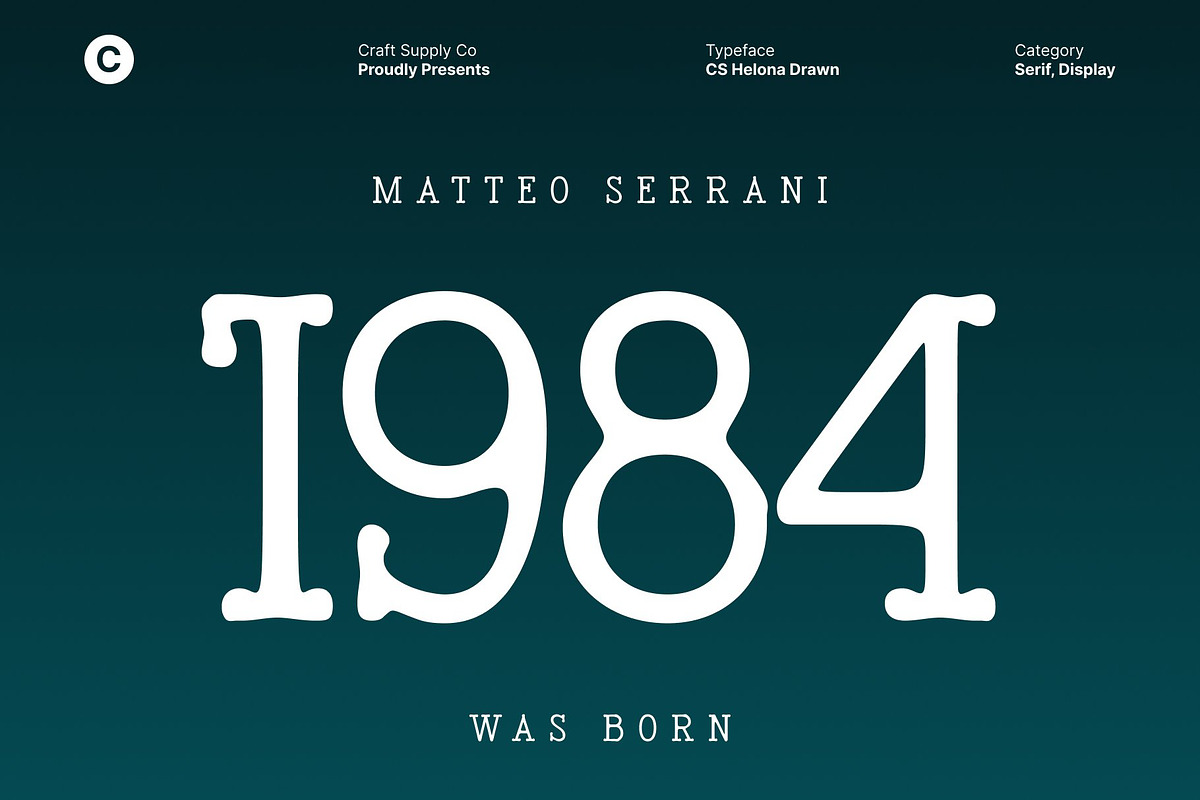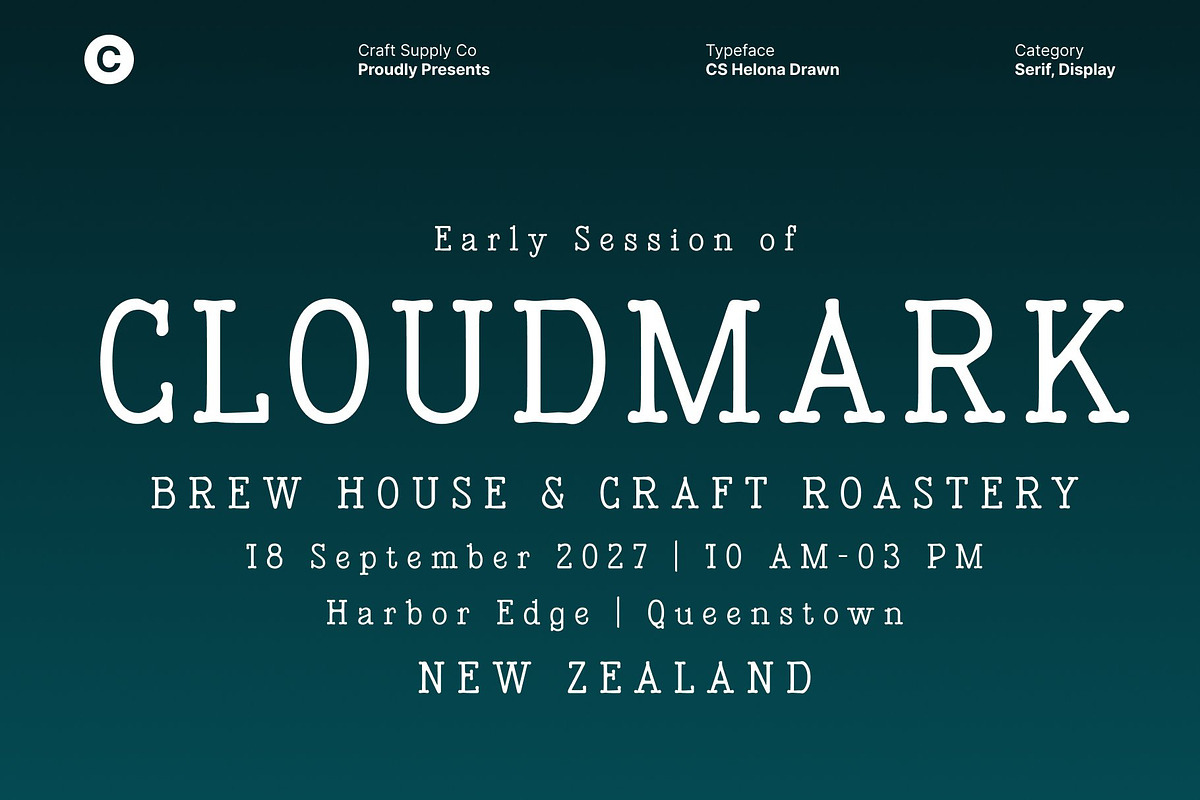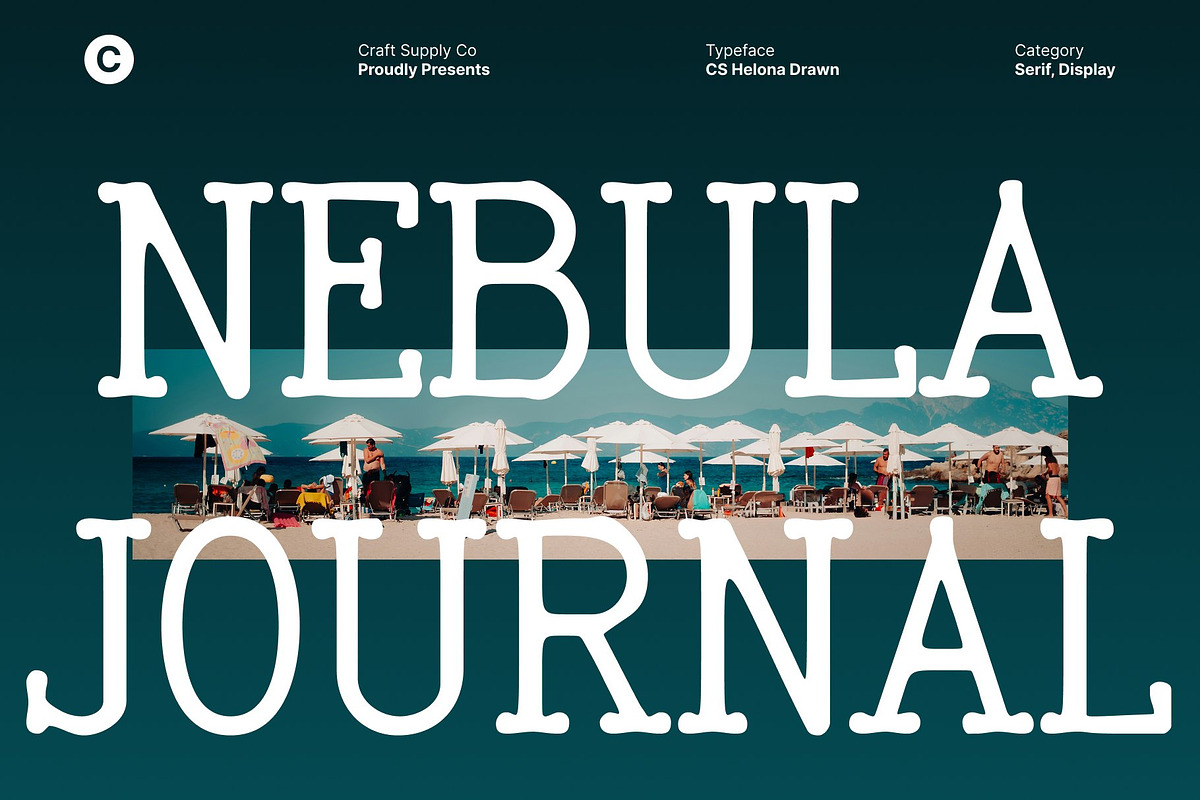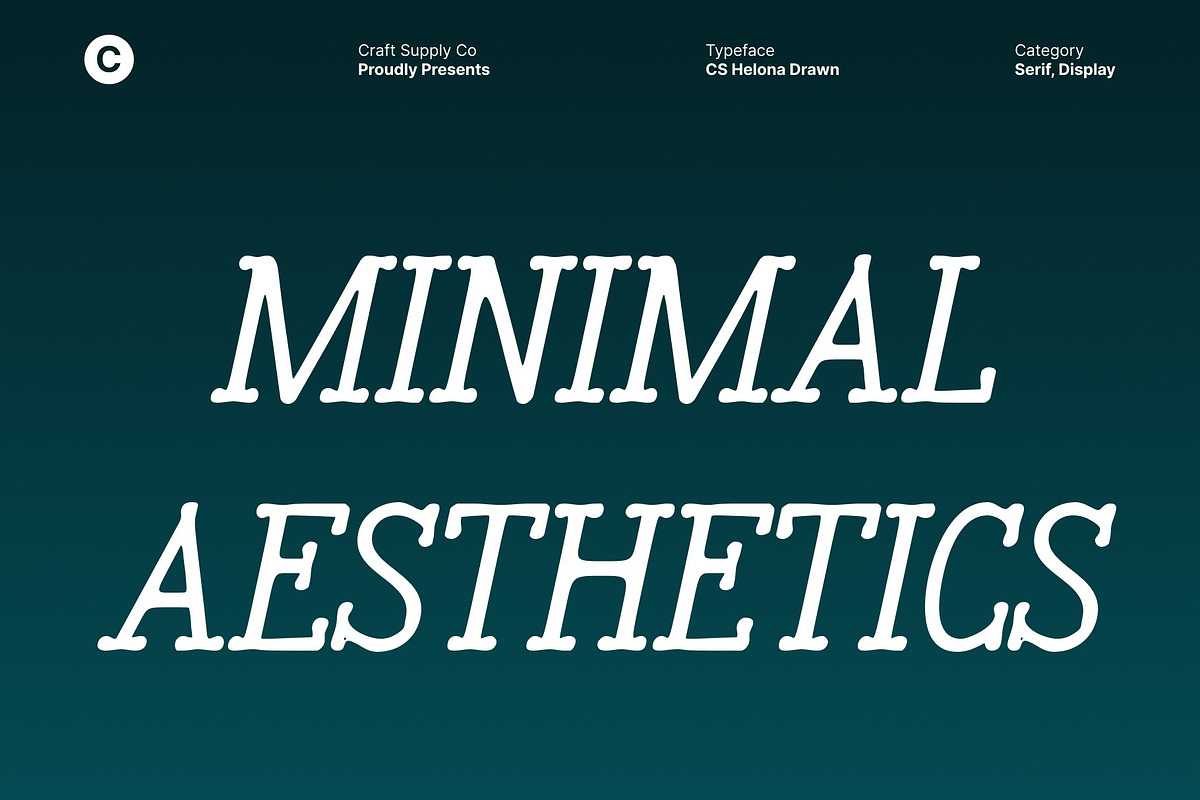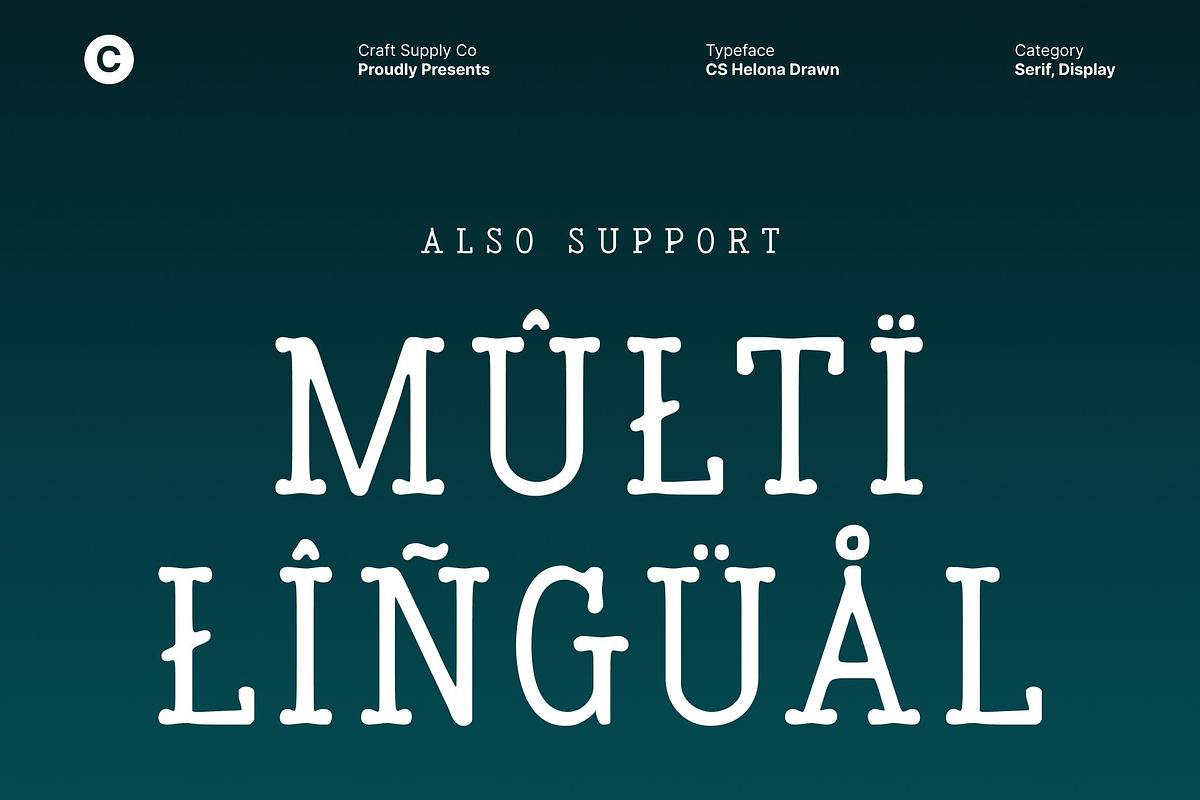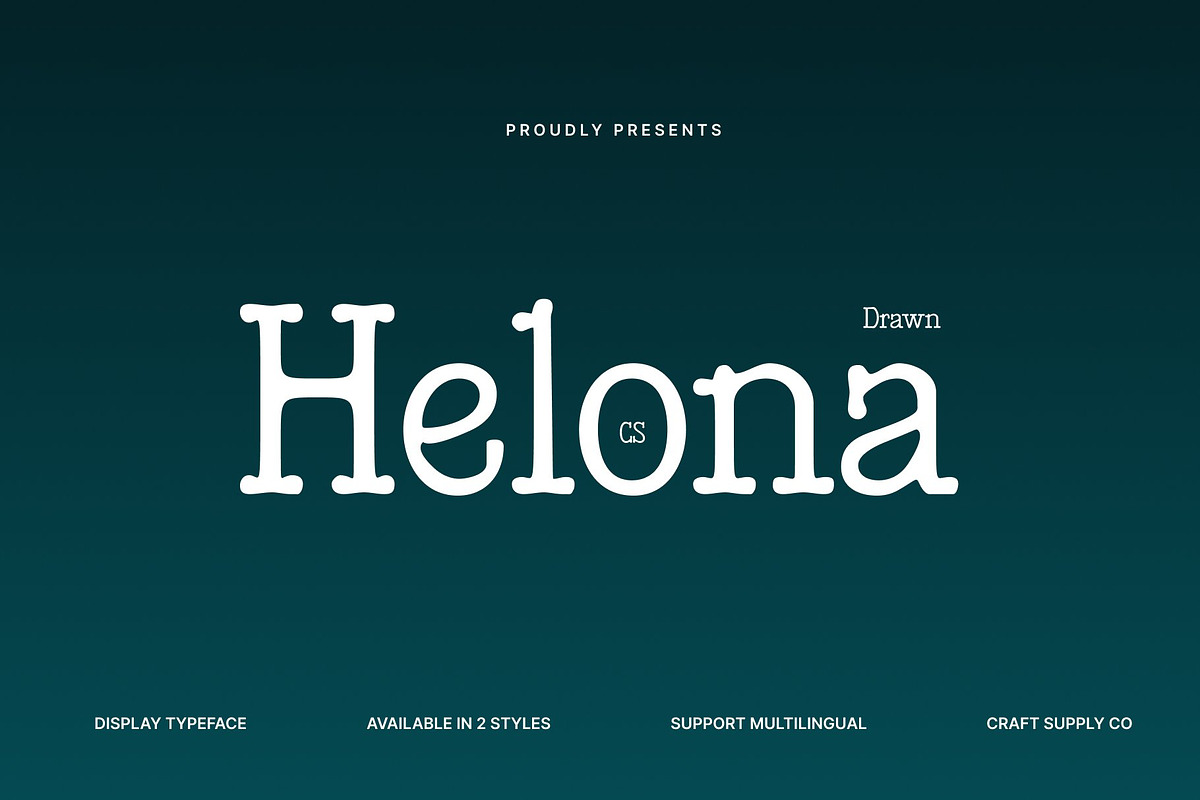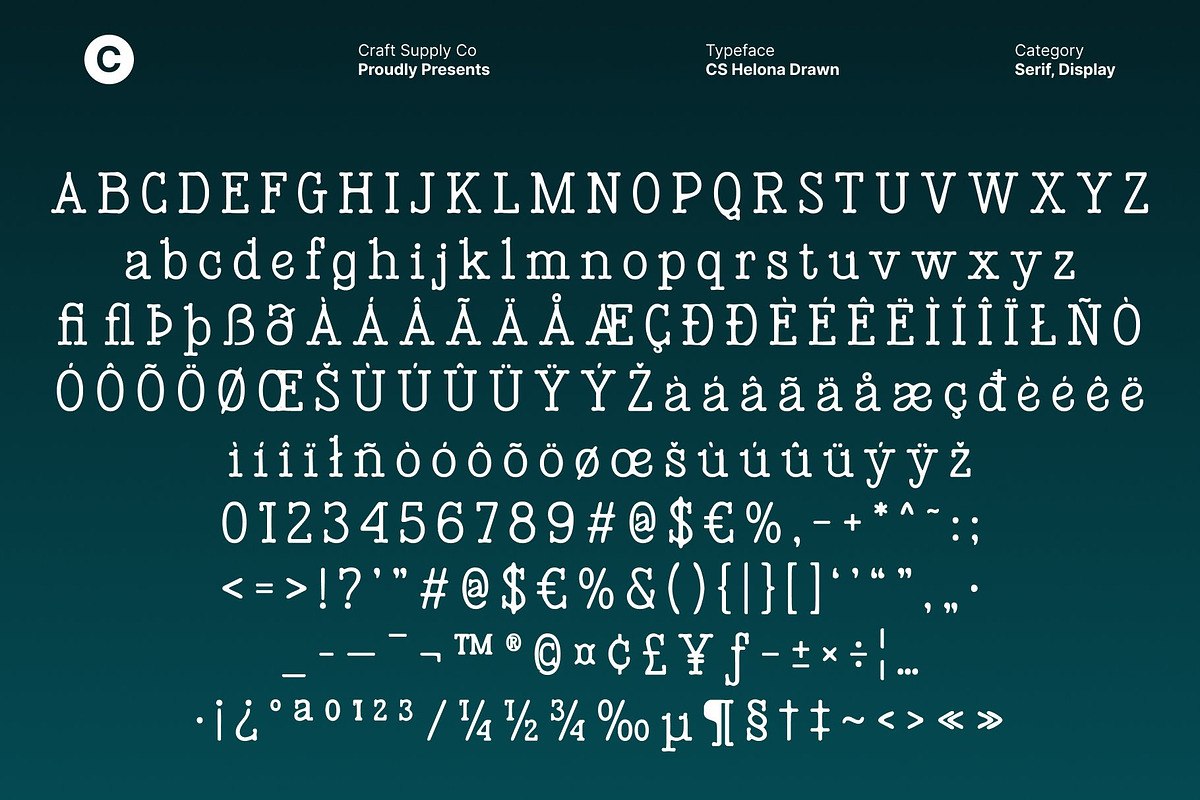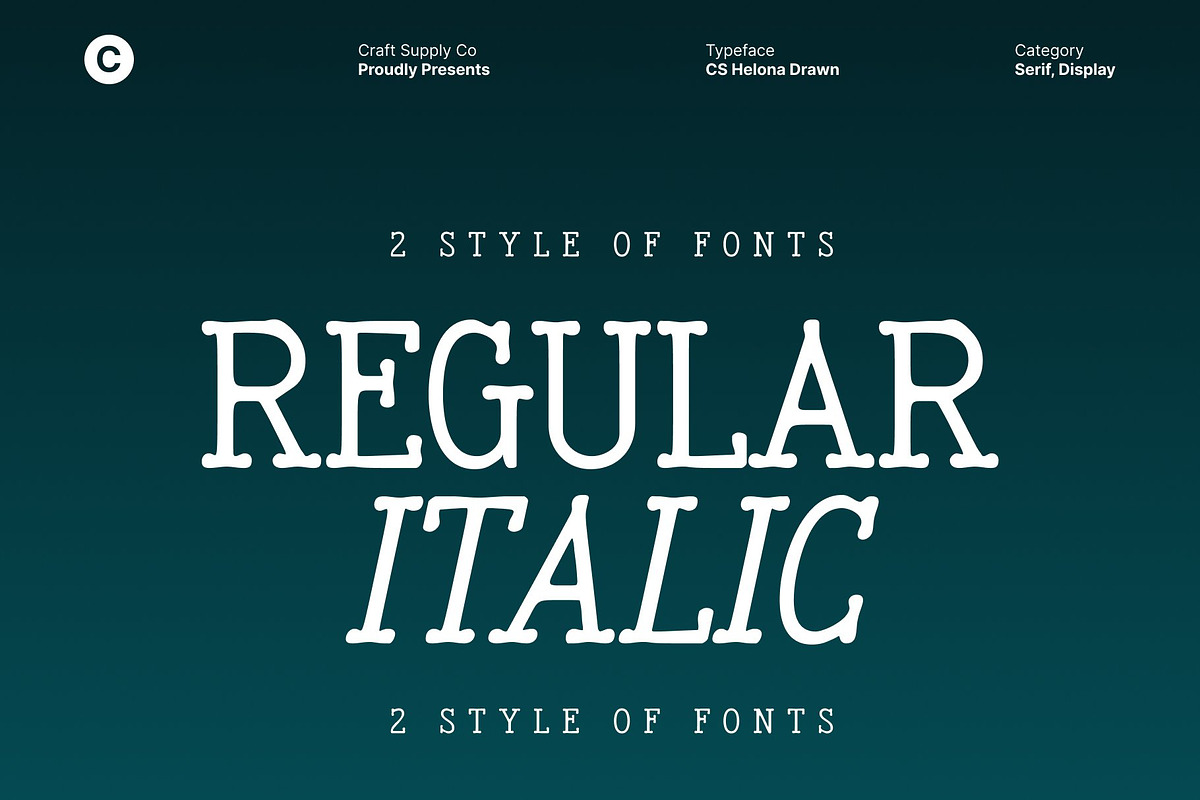
CS Helona Drawn
CS Helona Drawn – Decorative Serif Font with Luxurious Handmade Expression
Luxurious Letterforms with Refined Elegance This decorative serif font showcases luxurious, sophisticated forms designed to make a strong visual statement. Its refined structure and proportions convey a sense of high-end style, while artistic detailing adds depth and character. Each letter feels bold yet graceful, creating a distinctive typographic presence that immediately elevates any design.
Drawn Handmade Touch for Expressive Energy The drawn, handmade touch introduces organic texture and expressive variation, giving the font a lively and unconventional personality. Subtle imperfections and handcrafted strokes add warmth and movement, transforming the elegant serif forms into dynamic, artistic typography that feels personal and full of energy.
Perfect for Headlines, Posters, and Branding Ideal for eye-catching headlines, bold posters, creative branding, packaging, and editorial highlights, this font thrives in designs that demand individuality and presence. Its decorative nature ensures strong impact, while the handmade details keep the typography engaging and memorable.
Unique, Lively, and Unconventionally Elegant By blending luxurious serif structure with expressive handmade texture, this font delivers a unique balance of sophistication and creativity. It’s the perfect choice for designers seeking a decorative typeface that feels artistic, and alive breaking conventions while maintaining elegance and visual authority.
- CS Helona Drawn Regular
- CS Helona Drawn Italic